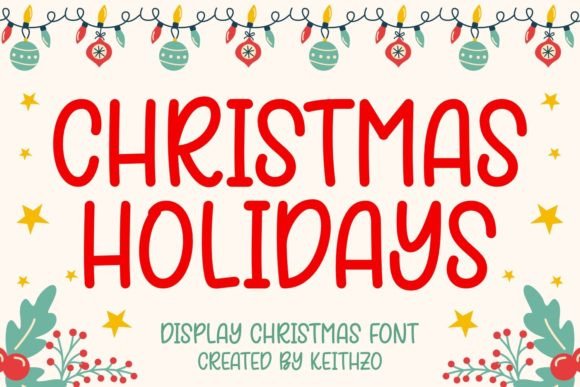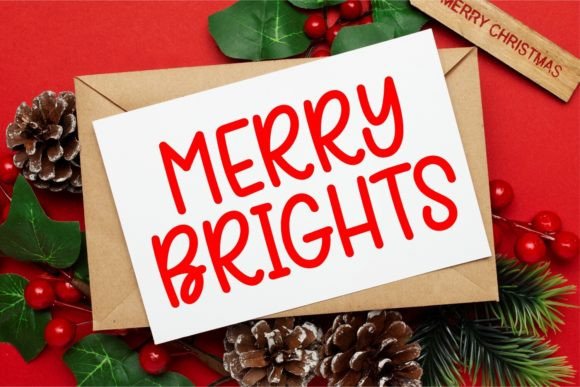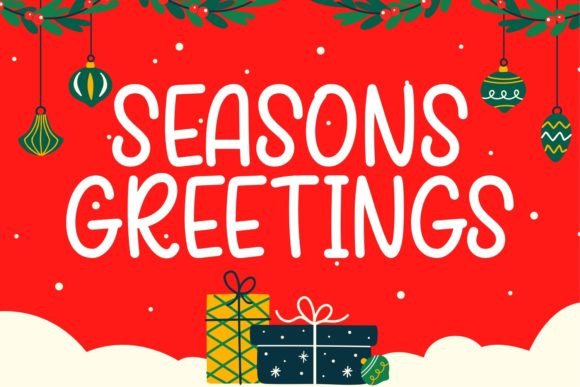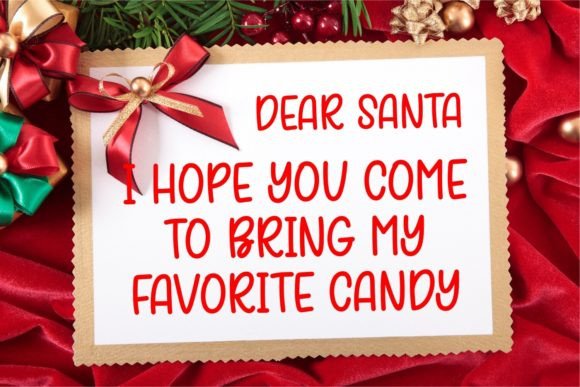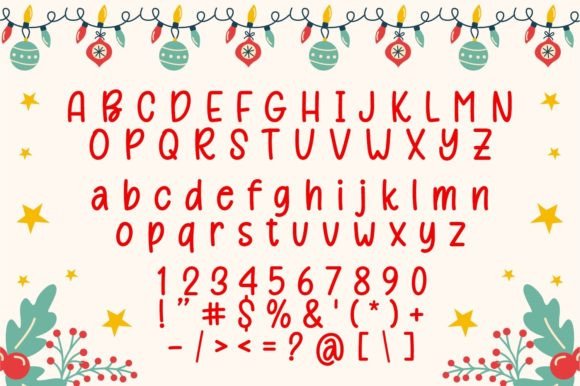
Christmas Holidays Font
Christmas Holidays font is a delightful and charming display typeface that captures the festive spirit of the season. With its playful and cute design, it’s perfect for adding a touch of holiday cheer to your Christmas-themed designs, from greeting cards to party invitations.